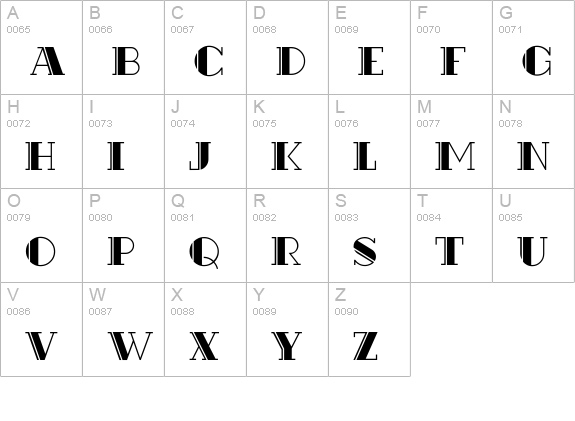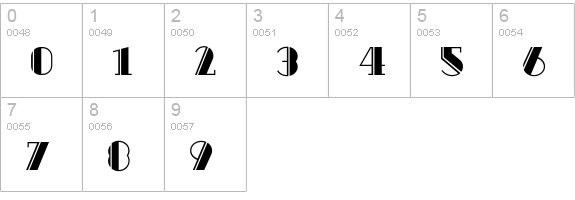
Rialto font is a stunning typeface that exudes elegance and sophistication. With its sleek lines and fluid curves, it effortlessly captures attention and adds a touch of class to any design project. Whether you're creating a logo, designing a website, or crafting a beautiful invitation, Rialto font will elevate your work to new heights. This font showcases a perfect balance between modernity and tradition, making it suitable for a wide range of applications. Its clean and crisp letterforms ensure legibility, while the subtle details add a subtle sense of refinement. Rialto font's versatility is truly remarkable, allowing it to effortlessly adapt to various design styles and themes. One of the most remarkable aspects of Rialto font is that it is completely free to use. Yes, you read that right! This magnificent typeface can be freely downloaded at FontsMarket.com. This means that you can enhance your creative projects without any financial burden, making it an invaluable resource for designers, students, and enthusiasts alike. Whether you're a professional designer or a hobbyist, Rialto font will become your go-to choice for all your typography needs. Its timeless beauty and versatility make it a must-have in your font library. So, don't miss out on this incredible opportunity to add a touch of elegance to your designs. Download Rialto font today from FontsMarket.com and unlock a world of possibilities.